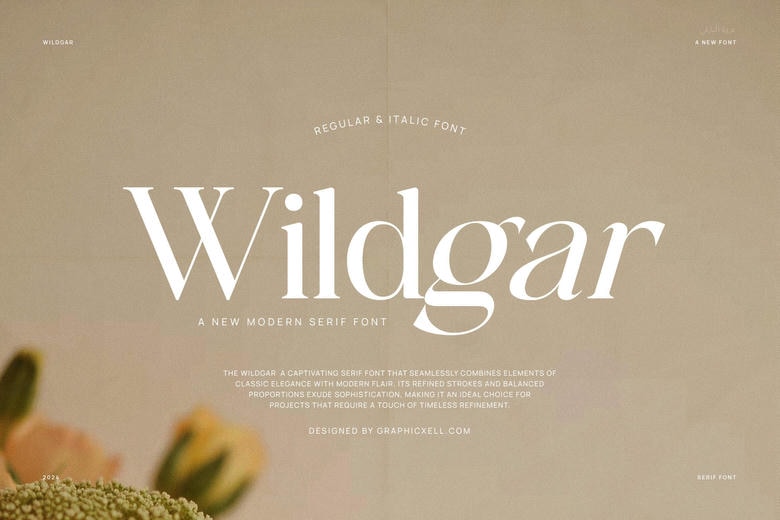
Wildgar Font
Wildgar is a serif font that brings together classic elegance and a modern touch. This mix makes it a good choice for many types of projects. Its fine strokes link each part of the letter, giving it a polished look.
Every Wildgar letter has its own style, especially in the regular and italic versions. The regular font looks both traditional and stylish, adding a bit of class to your display text.
Wildgar is a flexible font that works well for many design needs. It feels casual but also luxurious, with a modern edge. You can use it for wedding invitations, branding, fashion websites, logos, or product packaging.
Wildgar Serif Font